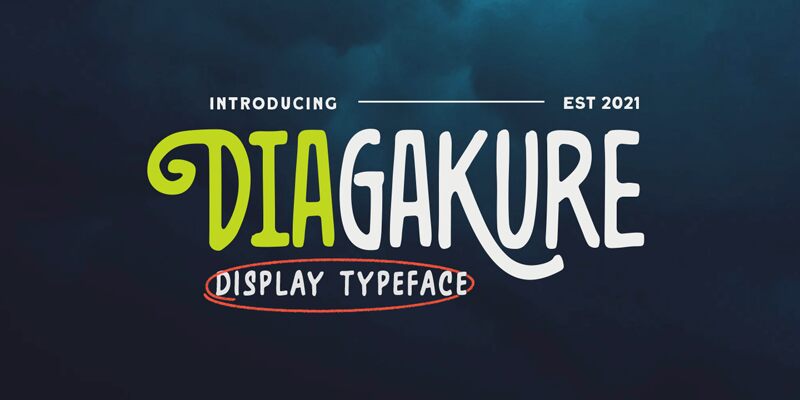
Introducing Diagakure, a condensed handwritten font by Letterhend Studio. With its unique letterforms and narrow width, it's perfect for designs where space is limited, such as product packaging, social media graphics, and poster titles. Add a touch of personality to your designs with the playful style of Diagakure.